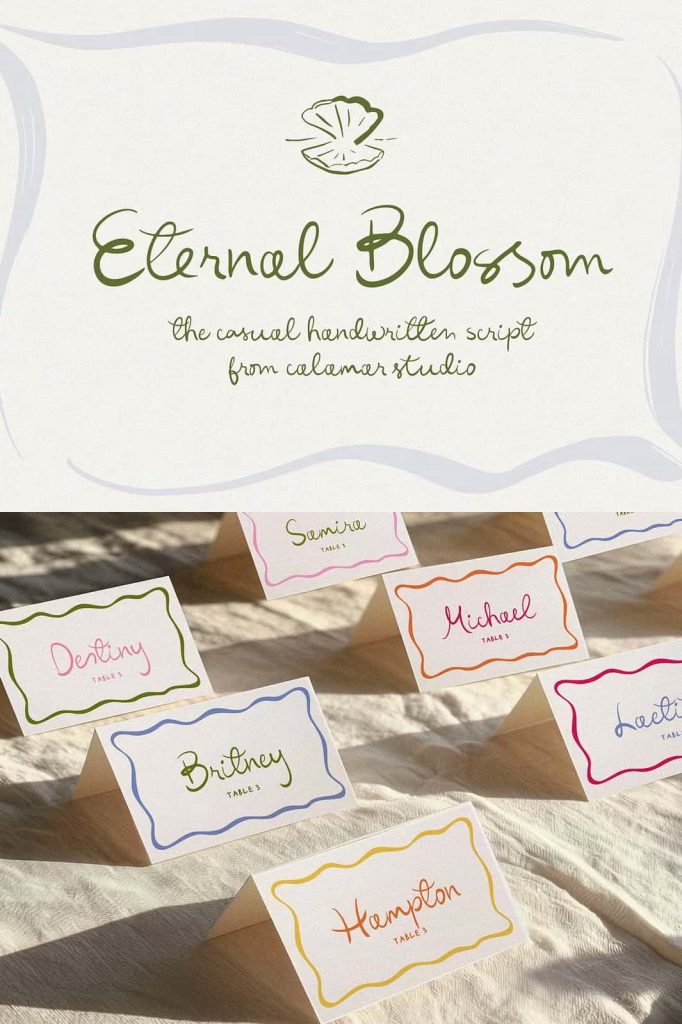
Eternal Blossom | Handwritten ScriptleastedJuly 13, 2025Fonts Introduce you the new trendy handwritten font. The perfect choice for the 2024-2025 Wedding Season. Download